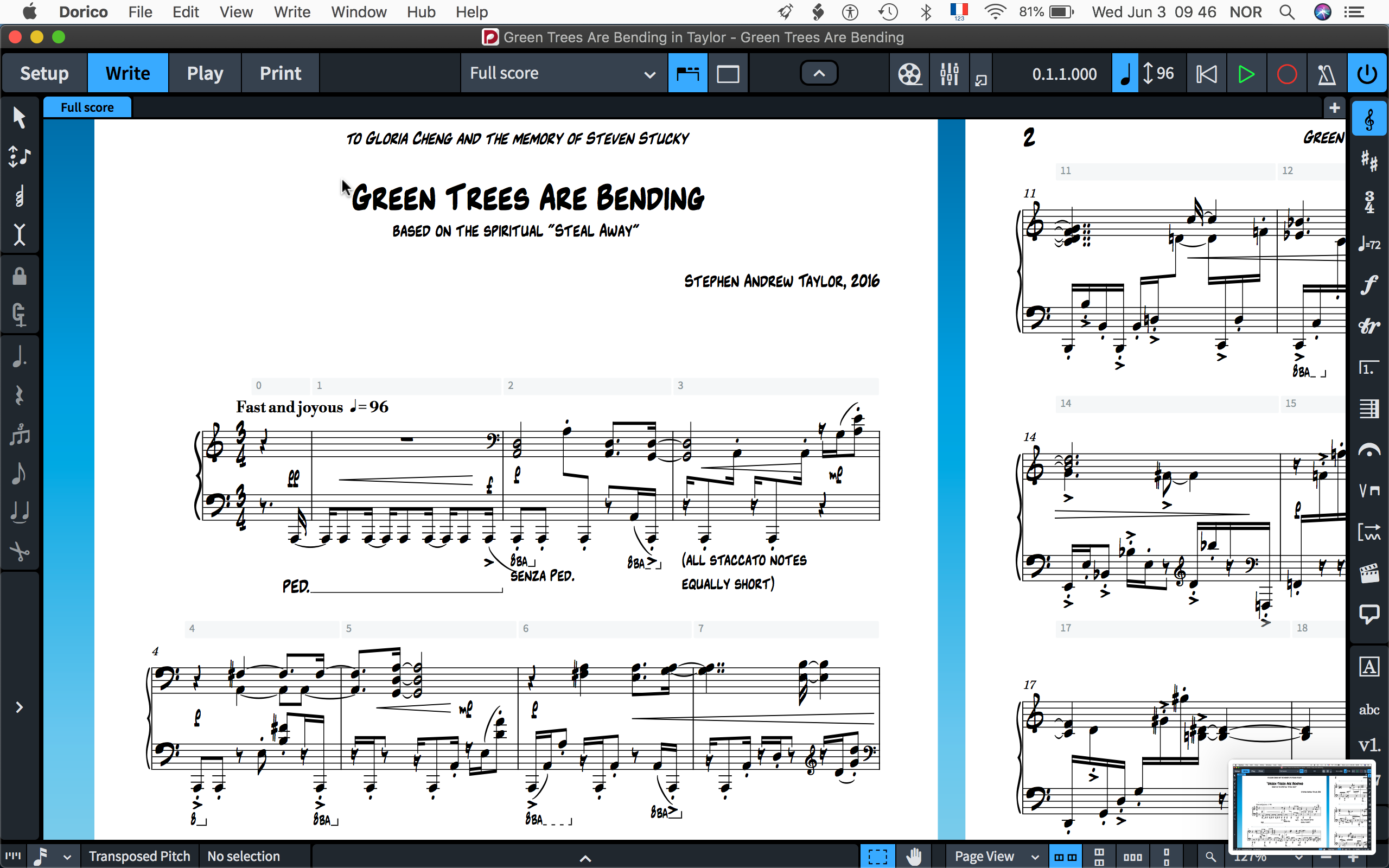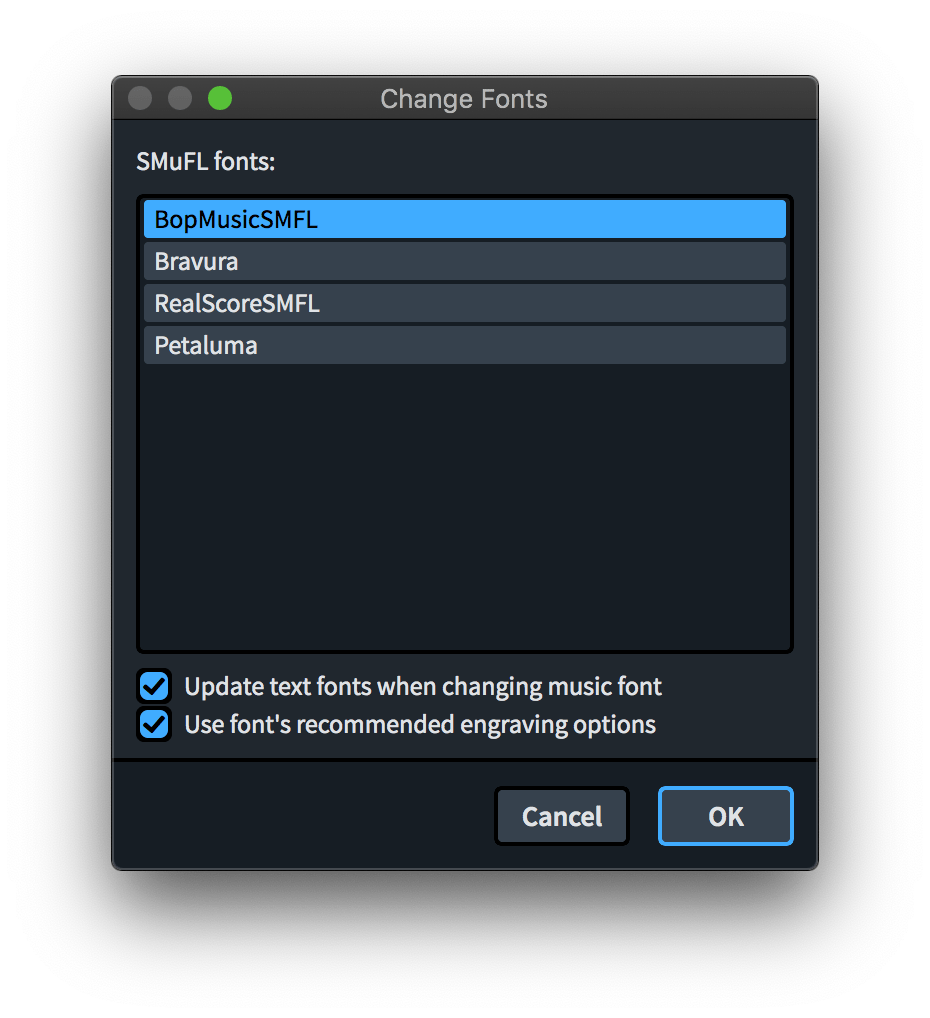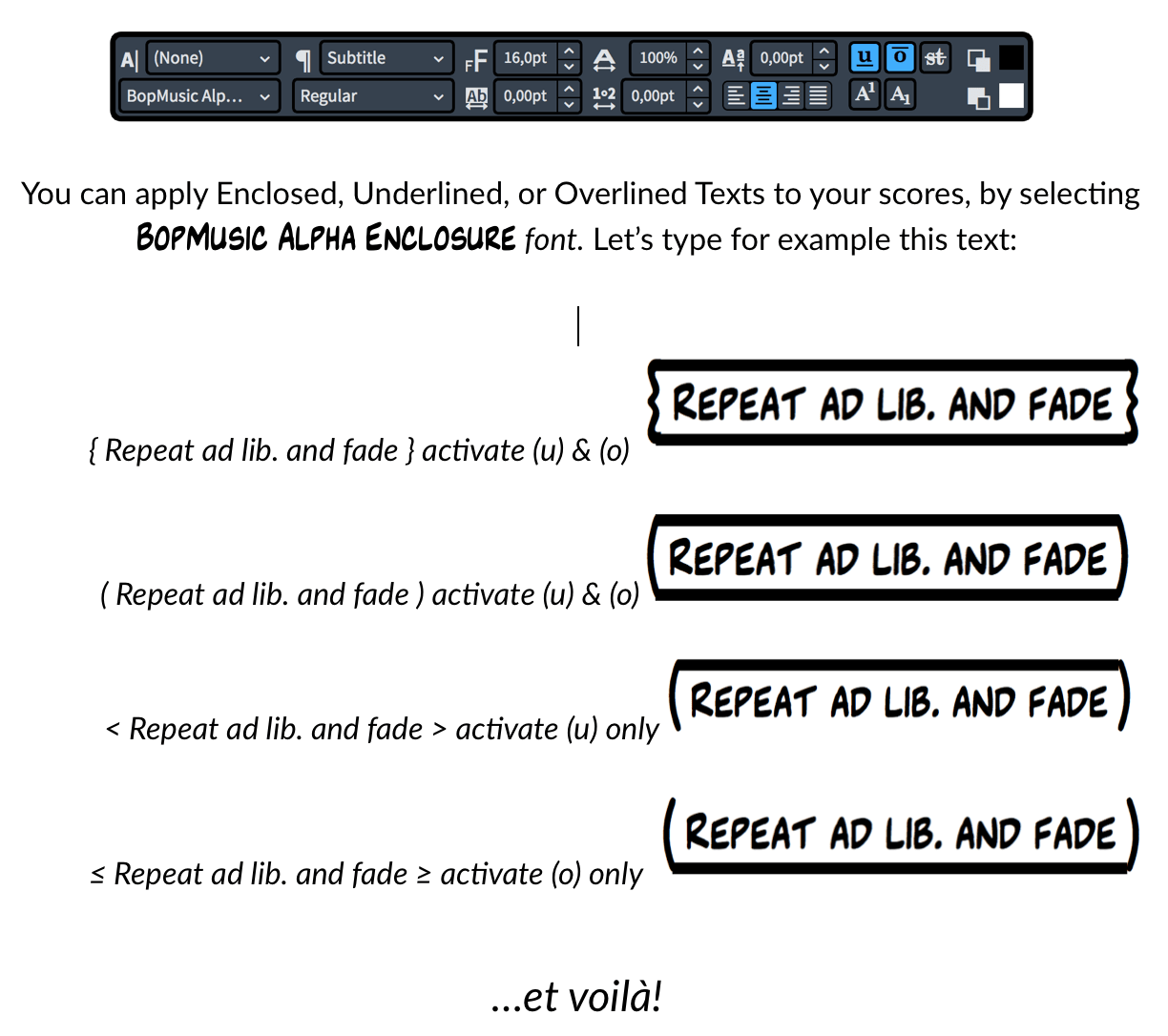
BopMusic fonts for Dorico & Finale v27 are now SMuFL compliant and feature more than 1300 music symbols and work as an alternative to Bravura, Petaluma fonts, Finale Maestro, Finale Jazz, or Finale Broadway font.
I enjoy the handwritten fonts from NorFonts and have bought them all. They are very well designed and look great. BopMusic comes bundled with a nice text font (BopMusic Alpha) with 10 different font styles, which makes it very versatile.